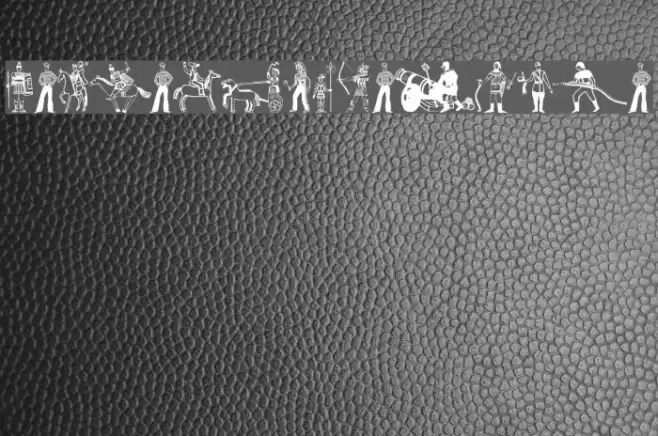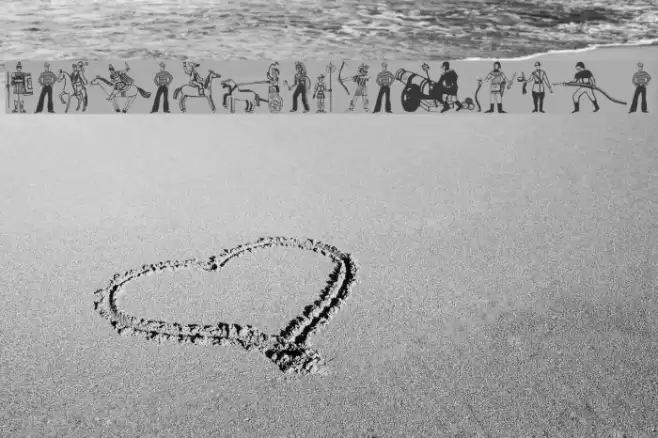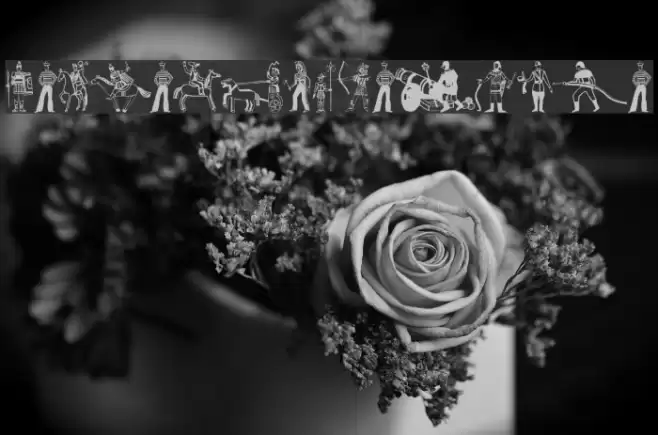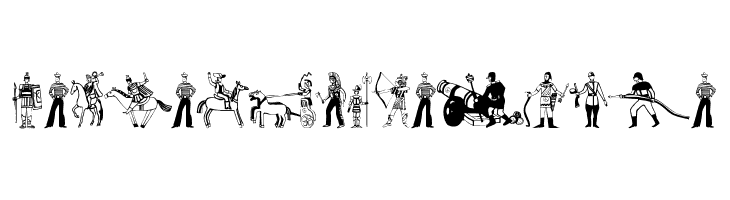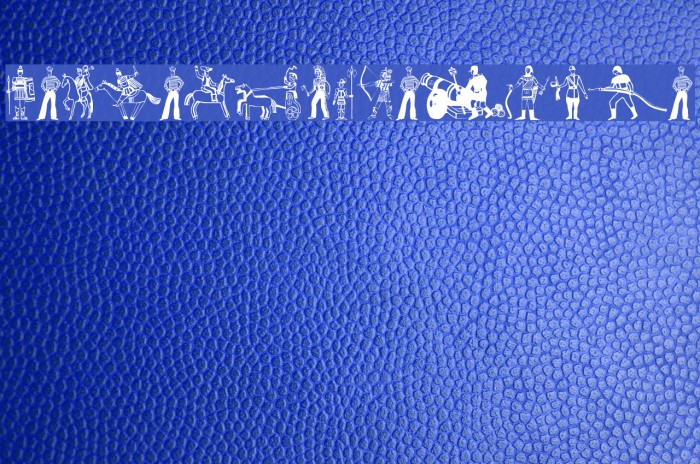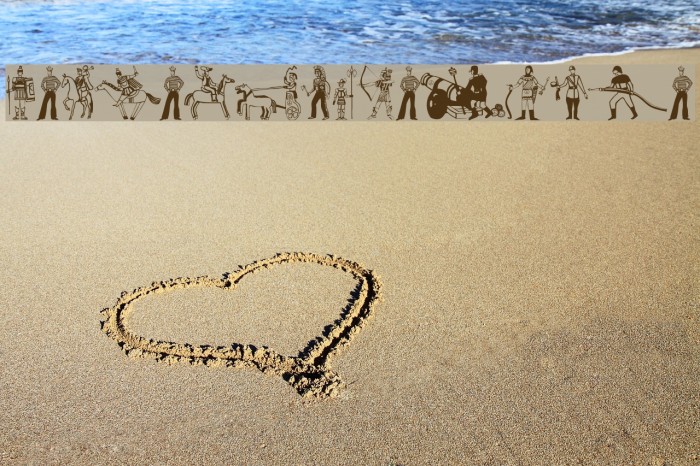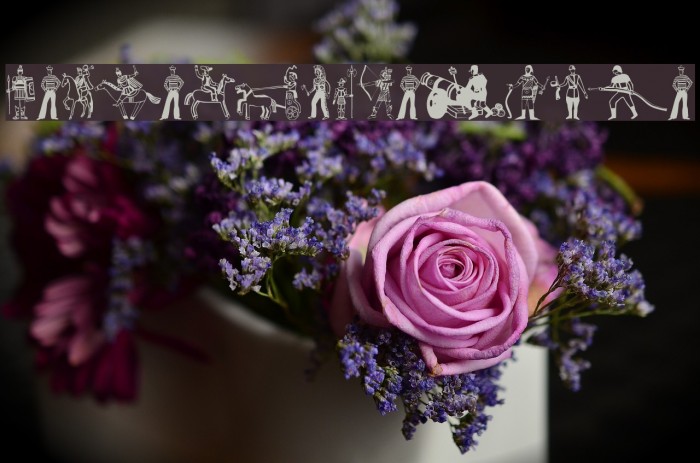
PeaceFightersOne Font
PeaceFightersOne Description
A highly decorative and illustrative font where each character is represented by a unique, detailed drawing of a historical or modern soldier, peace activist, or related figure, often interacting with props or vehicles. The style is playful and narrative, with each letter or symbol acting as a miniature scene rather than a traditional typographic form.
Illustrative, character-based font depicting peace and war figures from Uncategorized fonts.
- Proposed Projects: Posters, editorial illustrations, anti-war campaigns, educational materials, art projects.
- Overall Style: Decorative, Narrative, Artistic
- Use Case: Headlines, Posters, Art pieces, Thematic displays